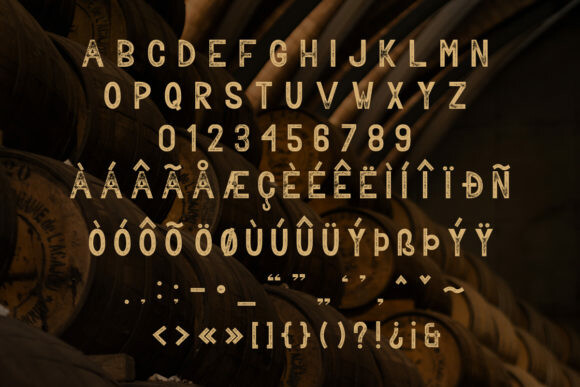
Bavalor Font
Bavalor Font is a striking sans serif family. It comes in 6 styles which can be used to create endless unique designs. All styles can be combines together perfectly but are also great as strong stand-alones.
This collection is great for logos, branding, stamps, posters, t-shirts, cards, signage, etc.